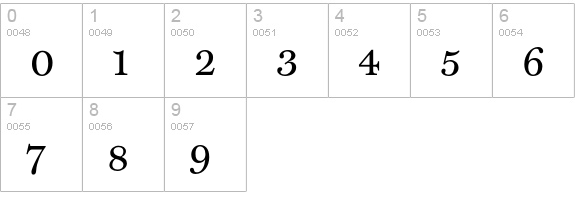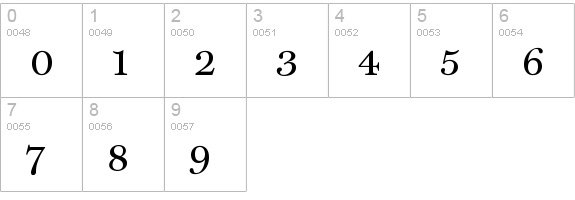
Miller-TextRoman Font Details
Miller-TextRoman is a classic and elegant serif font that exudes sophistication and timelessness. Its clean lines and balanced proportions make it a versatile choice for various design projects, from editorial layouts to branding materials. The graceful serifs and distinctive letterforms of Miller-TextRoman add a touch of refinement to any text. This font is available for free download at FontsMarket.com, making it easily accessible for designers and creatives looking to enhance their projects with a touch of sophistication. Whether you are designing a magazine spread, a logo, or a wedding invitation, Miller-TextRoman is sure to elevate your work with its timeless aesthetic. Download this exquisite font today and add a touch of elegance to your designs.